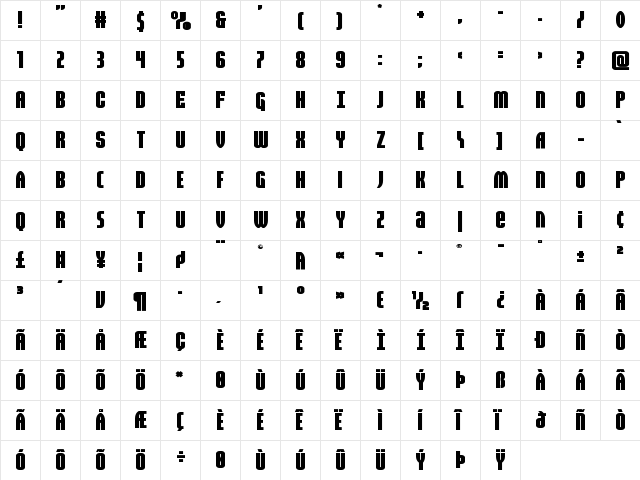
Valiant Times Expanded Regular Font Preview
Valiant Times Expanded Regular
Design Context for Valiant Times Expanded Typeface
Valiant Times Expanded offers clean, dependable letterforms without strong stylistic allegiance, making it a practical choice for designers who need flexibility.